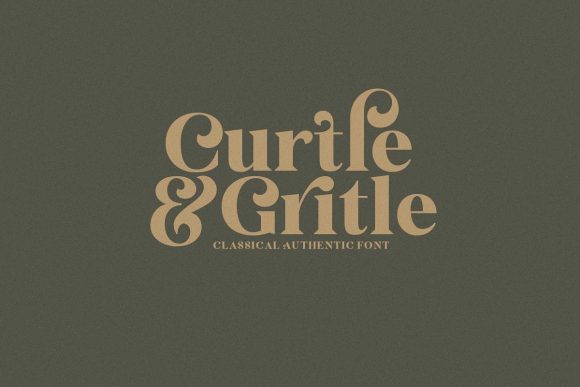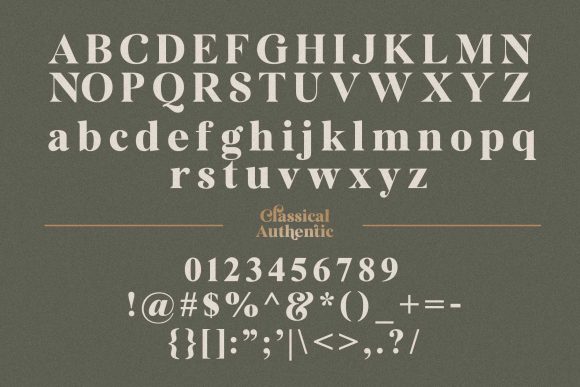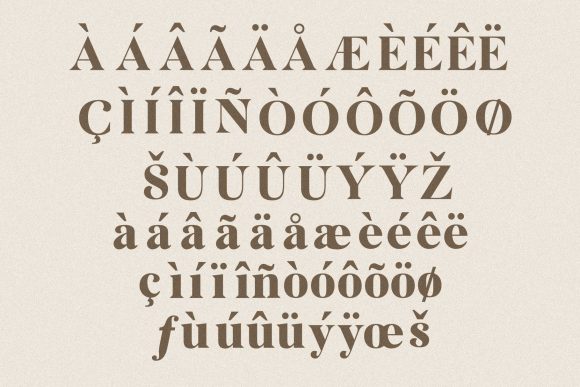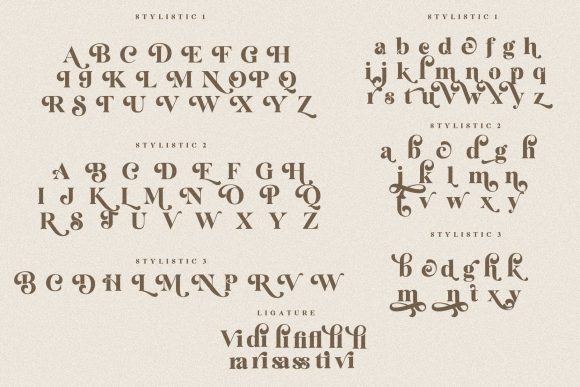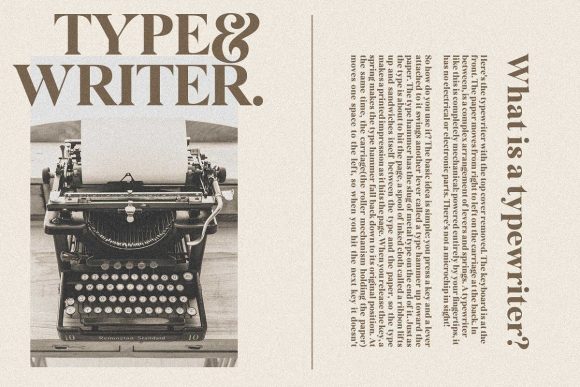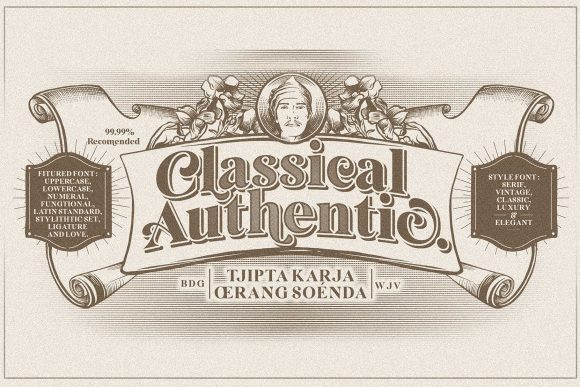
Discover the Timeless Elegance of Classical Authentic Font
In the world of typography, a font can make or break the visual appeal of a design. For crafters and designers seeking to add a touch of sophistication and uniqueness to their creations, the Classical Authentic Font is an exceptional choice. This bold and genuine serif font is expertly designed to elevate your work, making it look truly out of this world.
The Essence of Classical Authentic Font
Classical Authentic Font is more than just a typeface; it’s a statement. Its bold and genuine serif design exudes a sense of classic elegance, reminiscent of traditional printing techniques. Yet, it possesses a modern edge that makes it versatile for a wide range of applications. Whether you’re working on web designs, business cards, or any other project that demands a unique touch, this font is an ideal choice.
Unleash Your Creativity
What sets Classical Authentic Font apart is its incredible potential to take your ideas further. Its distinctive character ensures that your work stands out in a crowded digital landscape. Designers and crafters can use this font to add a layer of sophistication and personality to their projects, making them more engaging and memorable.
One of the key benefits of Classical Authentic Font is its versatility. It’s perfectly suited for a variety of design projects, including:
- Web Designs: Elevate your website’s typography with a font that’s both classic and contemporary. Classical Authentic Font ensures that your web design stands out, making it more engaging for visitors.
- Business Cards: Make a lasting impression with a business card that features elegant and bold typography. This font is sure to make your card memorable.
- Branding and Logos: For brands looking to establish a strong visual identity, Classical Authentic Font offers the perfect blend of tradition and modernity.
- Stationery and Invitations: Add a touch of class to your stationery, invitations, or any printed materials with this sophisticated font.
Why Choose Classical Authentic Font?
There are several reasons why designers and crafters are gravitating towards Classical Authentic Font:
- Unique Aesthetic: Its bold and genuine serif design offers a unique aesthetic that’s hard to find in modern fonts.
- Legibility: Despite its boldness, the font maintains high legibility, making it suitable for both headings and body text.
- Flexibility: It can be used across various platforms, from digital interfaces to print materials.
- Elegance: It adds a touch of elegance and sophistication to any design.
Tips for Using Classical Authentic Font
To get the most out of Classical Authentic Font, consider the following tips:
- Mix and Match: Combine it with sans-serif fonts for a striking contrast.
- Play with Sizes: Use larger sizes for headings and smaller sizes for body text to create visual hierarchy.
- Experiment with Colors: While the font looks great in black and white, experimenting with colors can add a unique touch to your designs.
Classical Authentic Font is a game-changer for designers and crafters looking to infuse their projects with a sense of timeless elegance and uniqueness. Its bold and genuine serif design, combined with its versatility and legibility, makes it an excellent choice for a wide range of applications. Whether you’re working on a web design, a business card, or any other creative project, this font has the potential to elevate your work and make it truly unforgettable.
So, why settle for ordinary when you can create something extraordinary? Discover the power of Classical Authentic Font and take your designs to new heights.